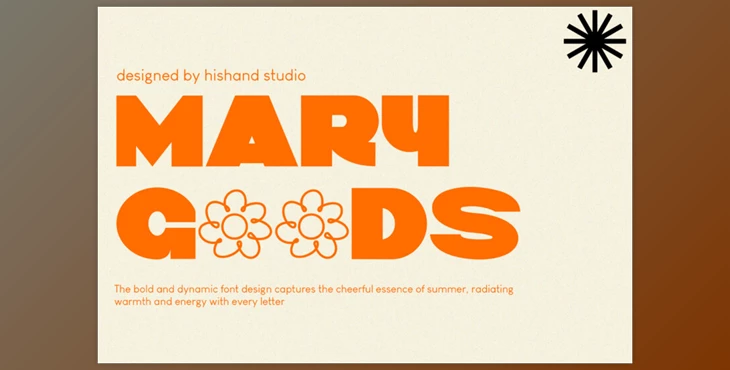
MARY GOODS - Bold Sans Serif Font: Introducing Mary Goods Font, a bold sans-serif typeface crafted to enhance branding, products, and design projects.
Beyond mere typography, Mary Goods serves as a potent branding tool, imbuing visual identities with a distinct character and style.